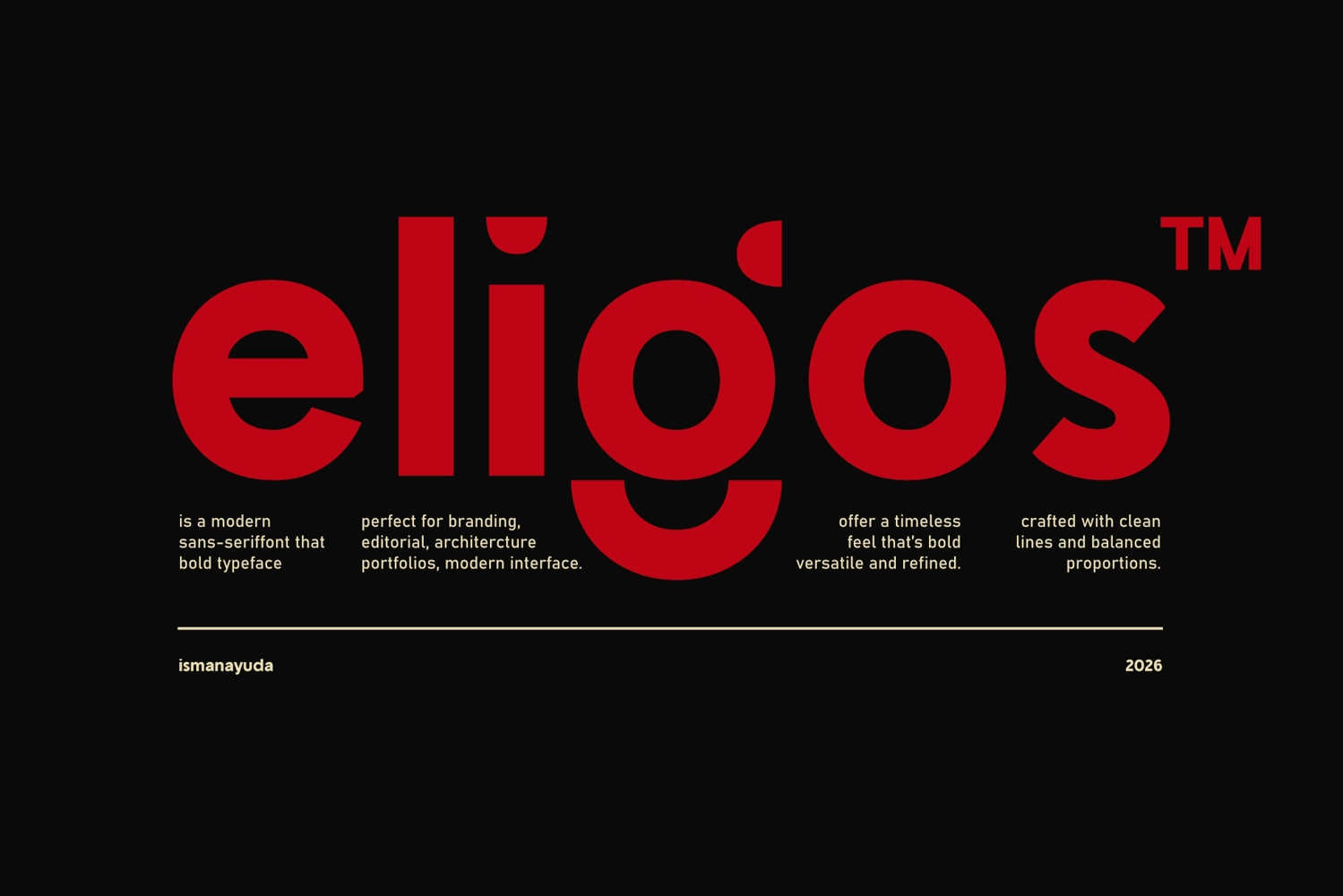
Eligos
The typeface in the image is described as eligos, a modern bold sans-serif font. Its design and characteristics can be detailed as follows: Visual Characteristics Sans-Serif Style: The font lacks the decorative strokes (serifs) at the ends of its characters, giving it a clean, minimalist, and contemporary appearance. Bold Weight: It features thick, heavy strokes that create a strong visual impact and high visibility, making it suitable for headlines and branding. Balanced Proportions: The letters are crafted with clean lines and balanced proportions to ensure a "timeless feel" that is both versatile and refined. Geometric Influence: The circular shapes of letters like 'e', 'o', and the 'g' suggest a geometric construction, which is common in modern interface and editorial design.